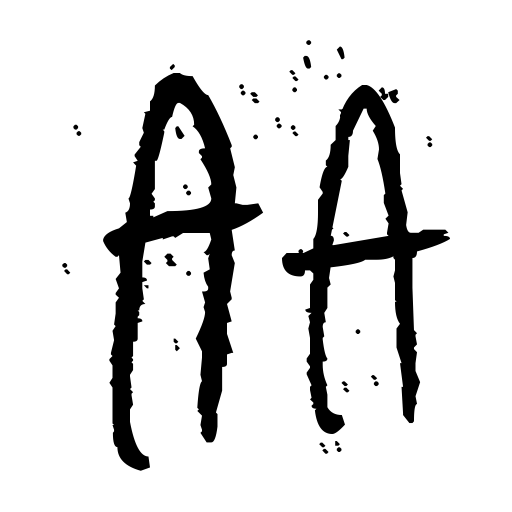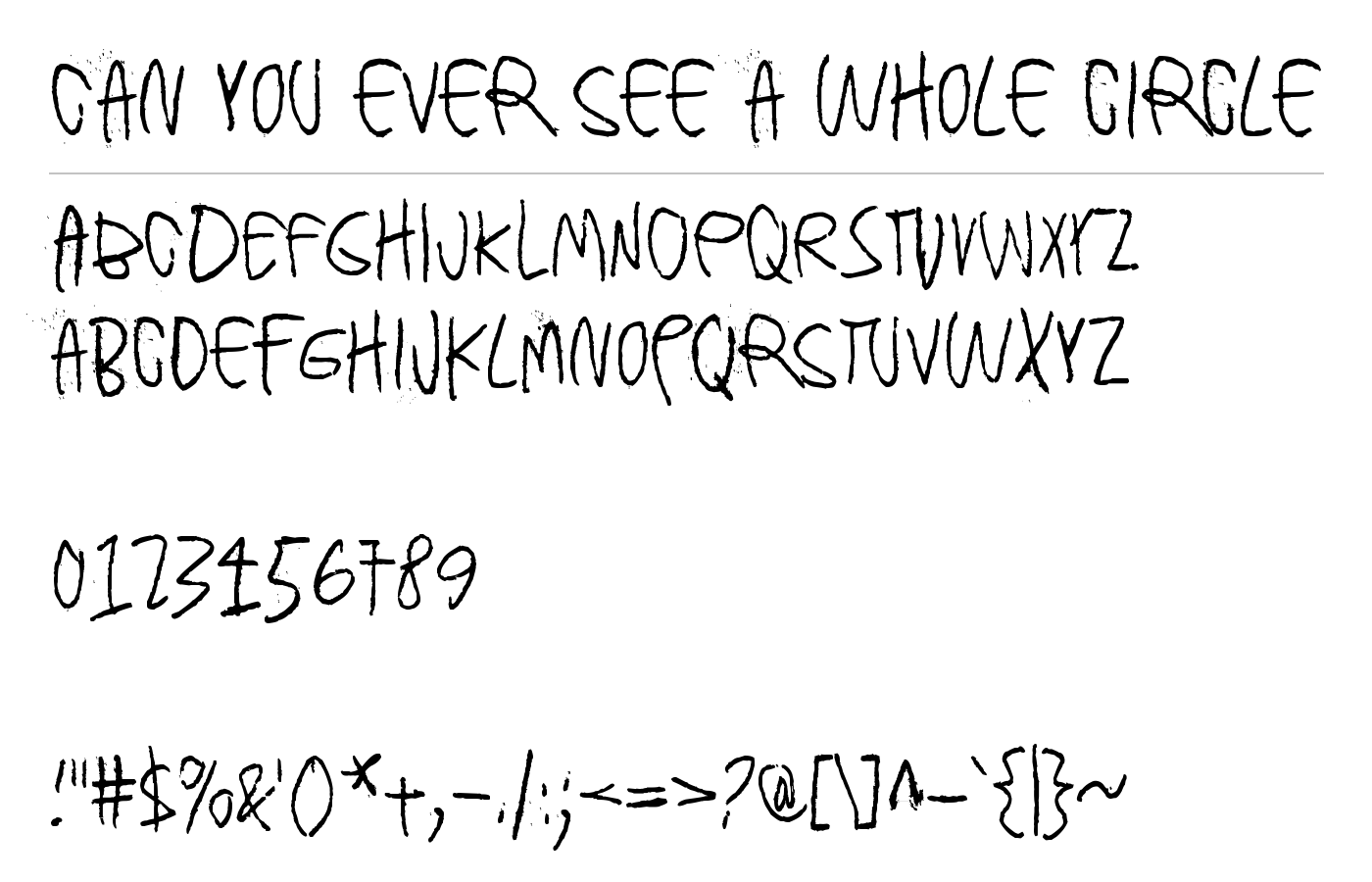
"Can you ever see a whole circle" is a quirky, hand-drawn sans serif font that exudes a playful and casual vibe. Its irregular, slightly rough strokes and tall, narrow letterforms give it a unique, expressive feel, making it ideal for artistic projects, informal branding, or creative headlines where a personal, hand-crafted touch is desired. This font works best in designs that seek to convey individuality and spontaneity rather than strict formality or precision.
Can you ever see a whole circle Font
About Can you ever see a whole circle Font